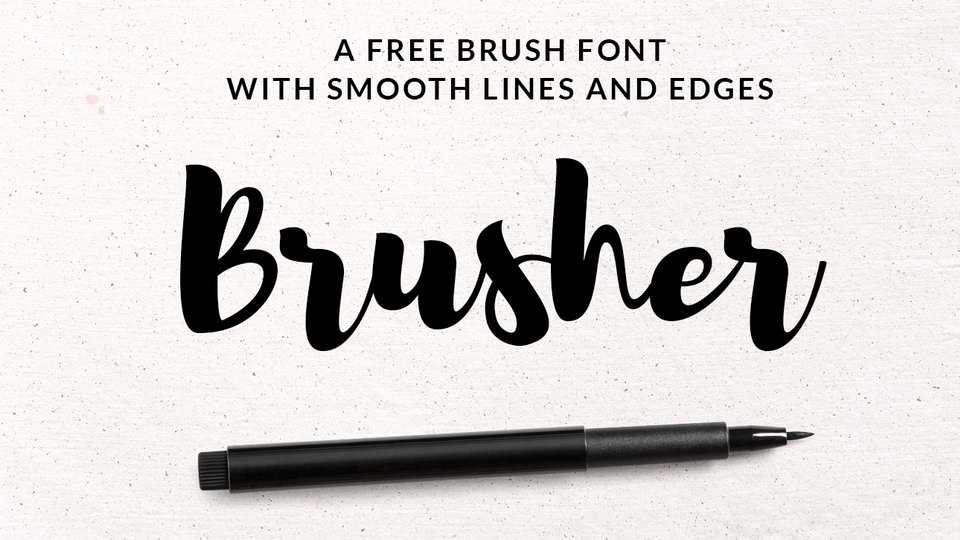
Download Brusher font, a modern bold brush lettered font crafted with precise strokes and smooth lines that will give your text a naturally hand drawn look.